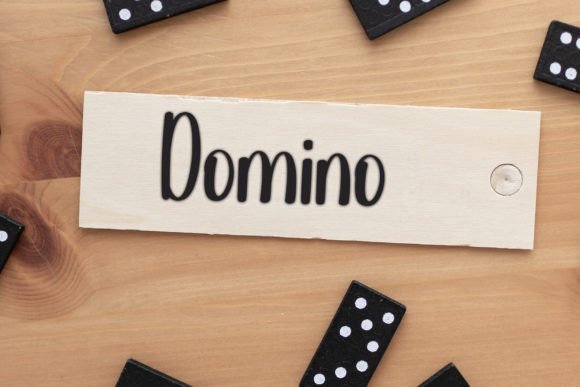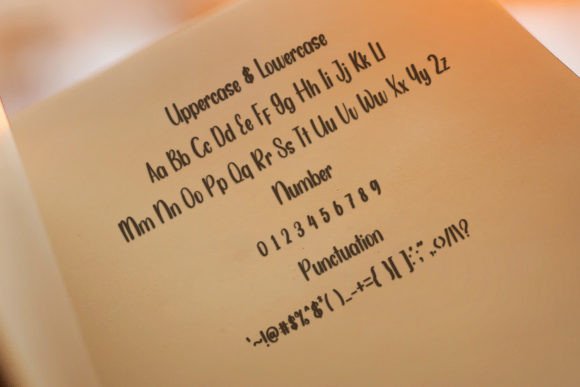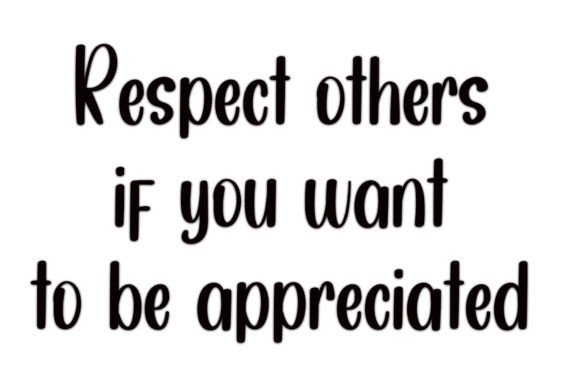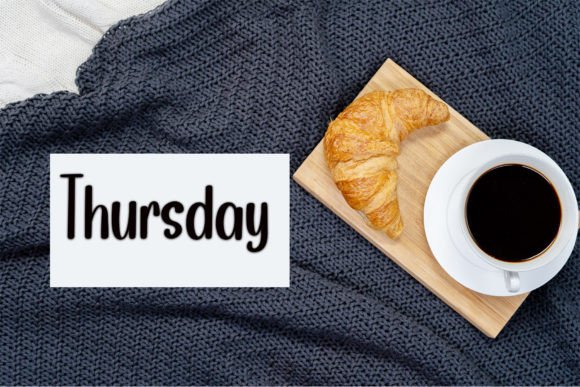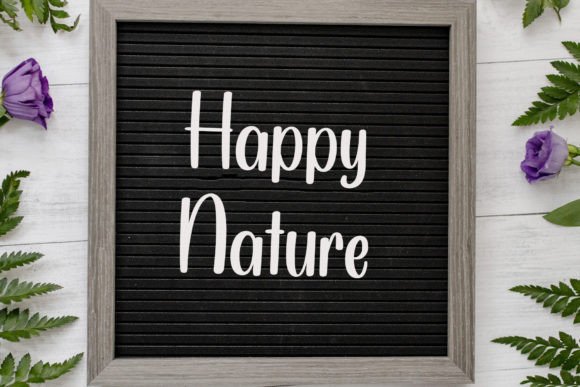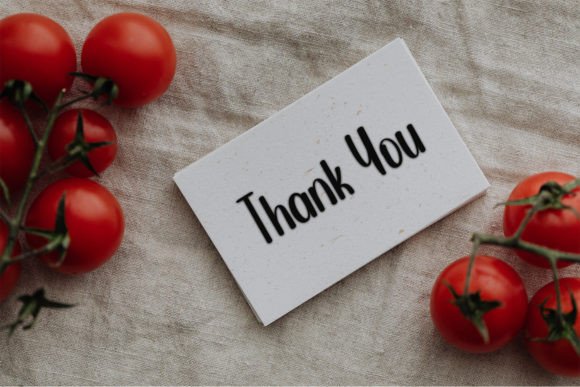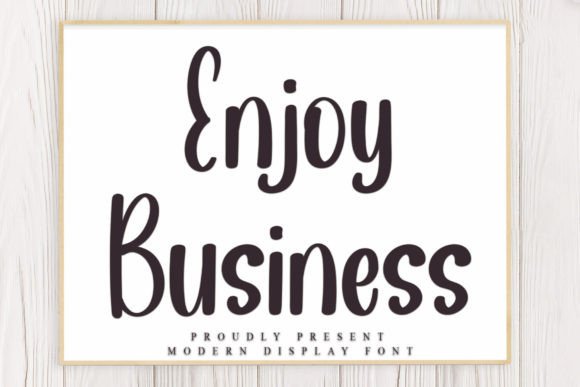
Introducing Enjoy Business Font: Elevate Your Designs with Elegance and Sophistication
In the world of design, fonts play a crucial role in conveying the tone and personality of a brand or project. For those seeking a stylish and elegant script font, look no further than Enjoy Business. This beautiful font is perfect for adding a touch of sophistication and whimsy to various designs, from wedding invitations to business cards. In this article, we’ll dive into the features and benefits of Enjoy Business Font, and explore how it can elevate your designs.
What is Enjoy Business Font?
Enjoy Business is a stylish and incredibly elegant script font that exudes a sense of luxury and refinement. Its flowing lines and cursive strokes make it perfect for designs that require a personal and human touch. Whether you’re a designer, crafty DIY enthusiast, or small business owner, Enjoy Business Font is an excellent choice for adding a touch of elegance to your projects.
Key Features of Enjoy Business Font
- Elegant Script Style: Enjoy Business Font boasts a beautiful, flowing script style that’s perfect for designs that require a touch of sophistication.
- Versatile: This font is suitable for a wide range of designs, including wedding invitations, thank you cards, quotes, greeting cards, logos, business cards, and more.
- Handwritten Touch: Enjoy Business Font adds a personal, handwritten touch to your designs, making them stand out from the crowd.
- Easy to Read: Despite its elegant and cursive nature, Enjoy Business Font is easy to read, making it perfect for body text and headings.
Use Cases for Enjoy Business Font
Enjoy Business Font is an incredibly versatile font that can be used in various design projects. Here are some popular use cases:
- Wedding Invitations: Add a touch of elegance and sophistication to your wedding invitations with Enjoy Business Font.
- Business Cards: Make a lasting impression with beautifully designed business cards featuring Enjoy Business Font.
- Greeting Cards: Create stunning greeting cards for special occasions, such as birthdays, anniversaries, and holidays.
- Logos and Branding: Use Enjoy Business Font to create a unique and memorable logo for your business or brand.
- Quotes and Posters: Add a touch of elegance to your quotes and posters with Enjoy Business Font.
Why Choose Enjoy Business Font?
With so many fonts available, why choose Enjoy Business Font? Here are a few compelling reasons:
- Unique and Distinctive: Enjoy Business Font is a unique and distinctive font that will set your designs apart from the crowd.
- High-Quality: This font is designed with high-quality and precision, ensuring that it looks stunning in any design.
In conclusion, Enjoy Business Font is a stylish and elegant script font that’s perfect for adding a touch of sophistication to your designs. With its versatile nature, ease of use, and high-quality design, it’s an excellent choice for designers, crafty DIY enthusiasts, and small business owners. Whether you’re creating wedding invitations, business cards, or greeting cards, Enjoy Business Font is sure to elevate your designs and make them stand out from the crowd.